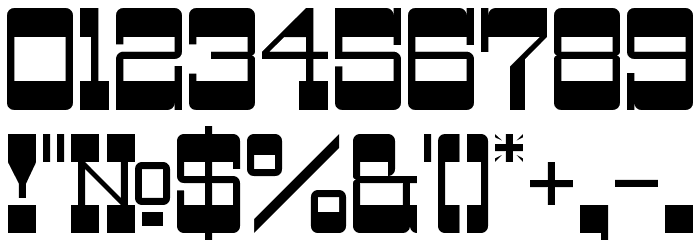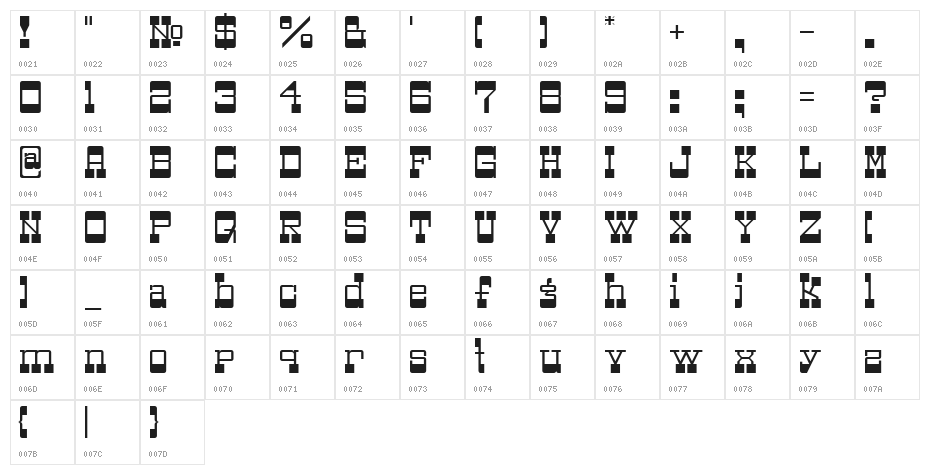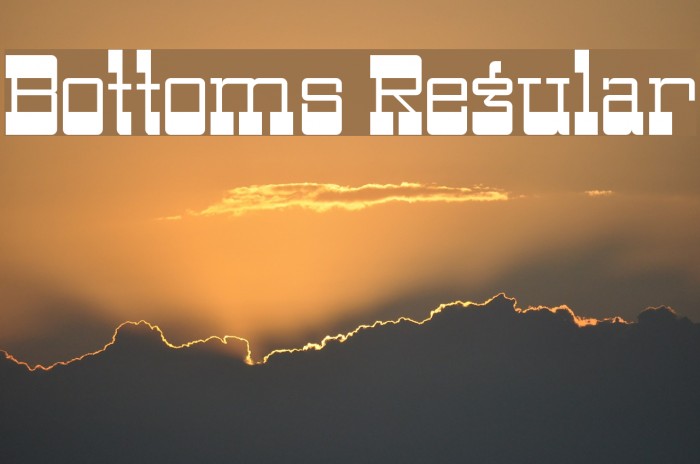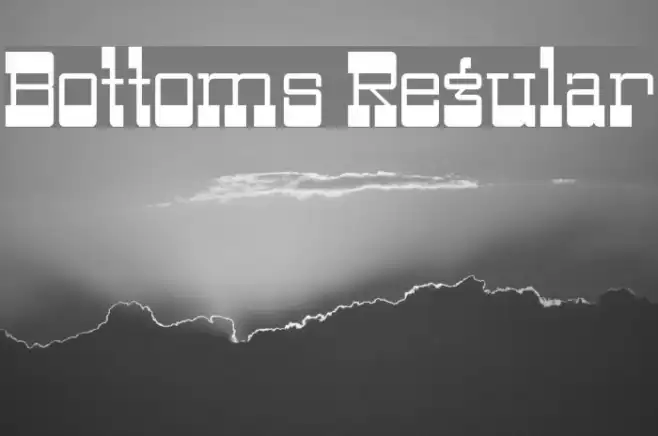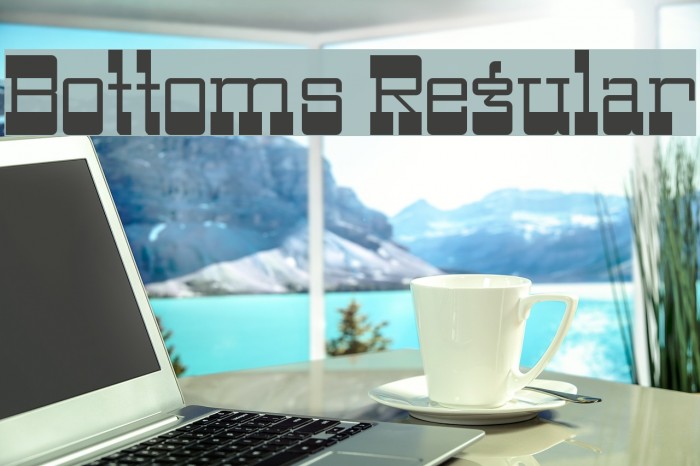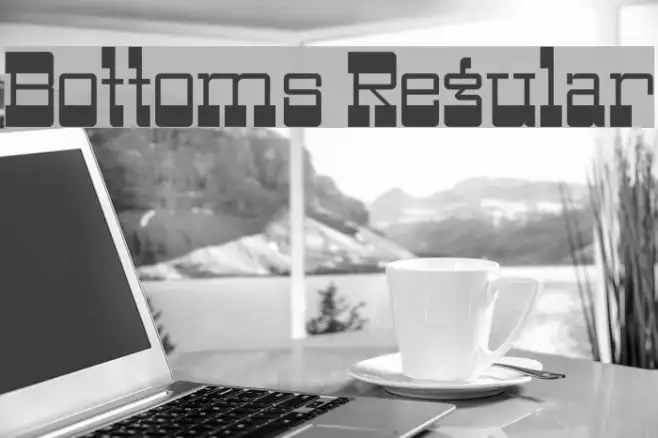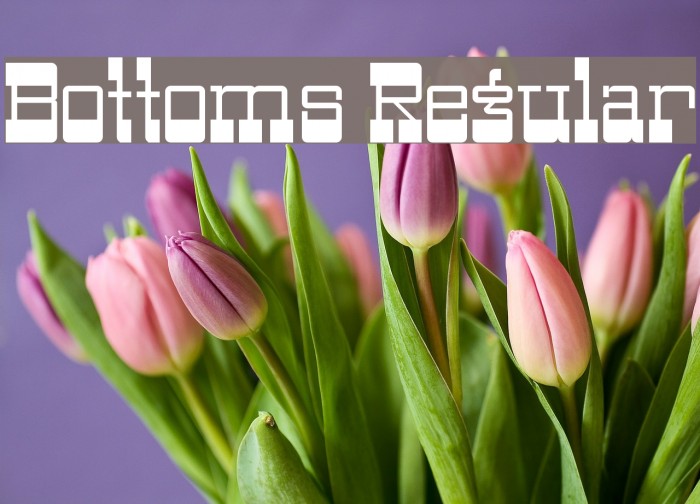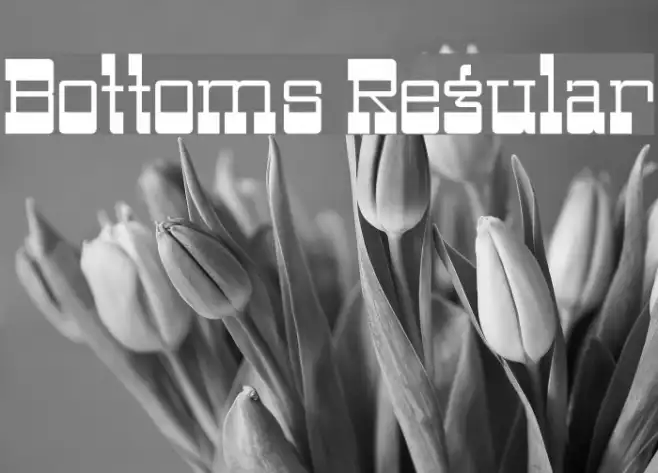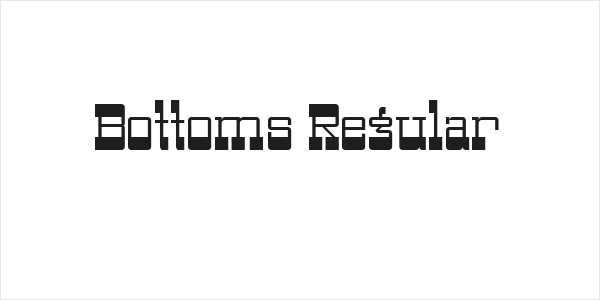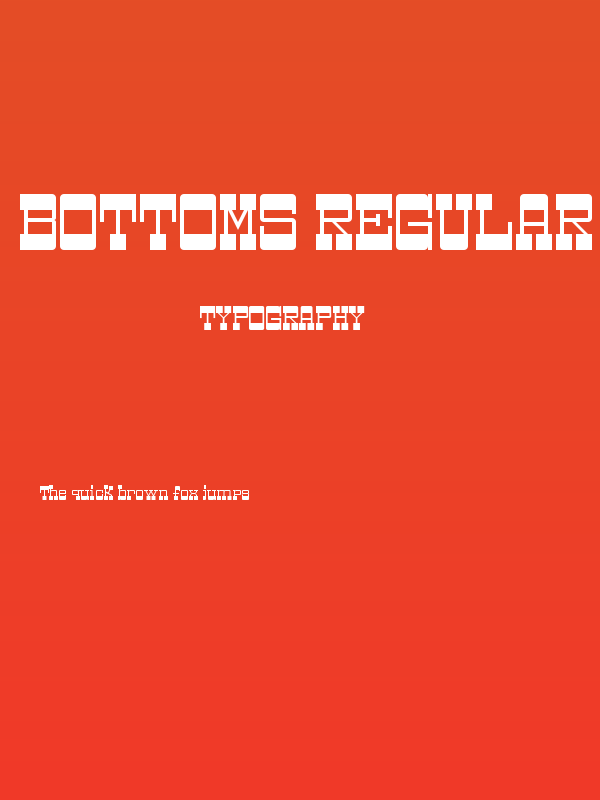
Bottoms Regular Font
Bottoms Regular Description
This font features a bold and geometric design with a strong presence. The characters are constructed with a blocky, modular style that emphasizes uniformity and structure. Each letter is distinct, with sharp angles and a consistent weight throughout. The uppercase letters are particularly striking, with a robust and commanding appearance. The lowercase letters maintain the same boldness, ensuring readability while retaining the font's unique style. Numbers and special characters are designed to match the overall aesthetic, making this font suitable for a variety of uses where impact and clarity are essential.
| Proposed Projects | Ideal for posters, logos, headlines, and branding materials that require a strong visual impact. |